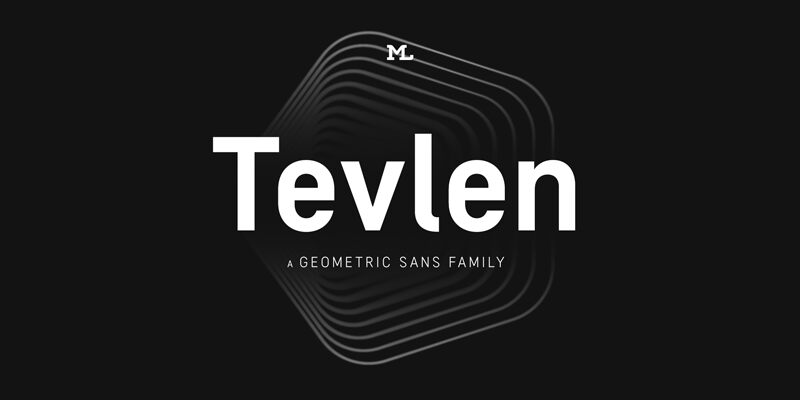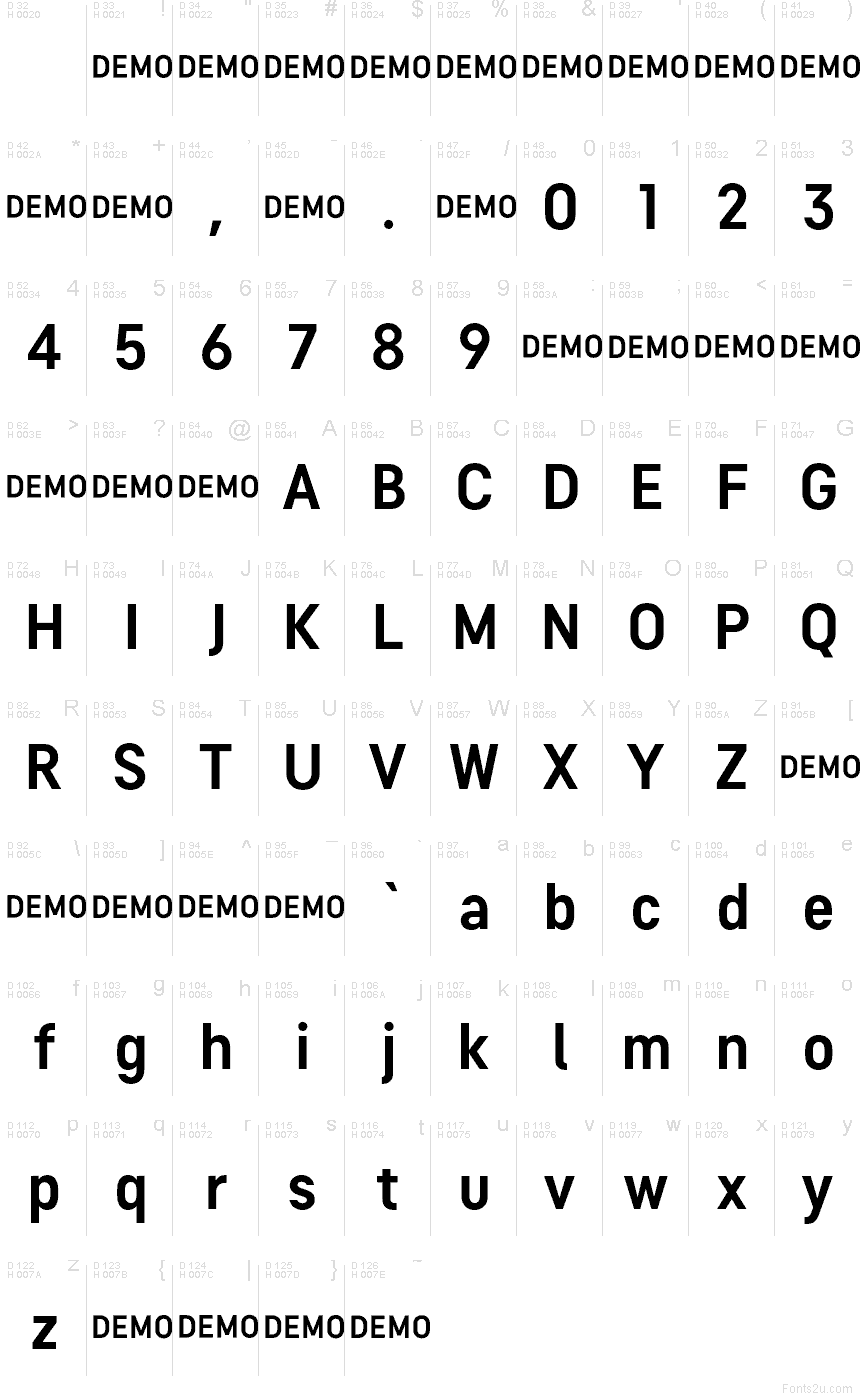
Tevlen Bold by Marc Lohner is a free bold geometric sans serif with an imposing, tightly built silhouette and strong vertical emphasis. Broad strokes and near-circular curves keep the lettering sturdy and direct.
Technology, sport, and urban culture are convincing subjects for its blunt, stripped-back forms. It can drive sports posters, streetwear merchandise, tech packaging, and event graphics because the dense shapes read as assertive rather than ornamental. In branding, the squared outer edges and rounded inner forms can become a recognizable product signature across an entire campaign.